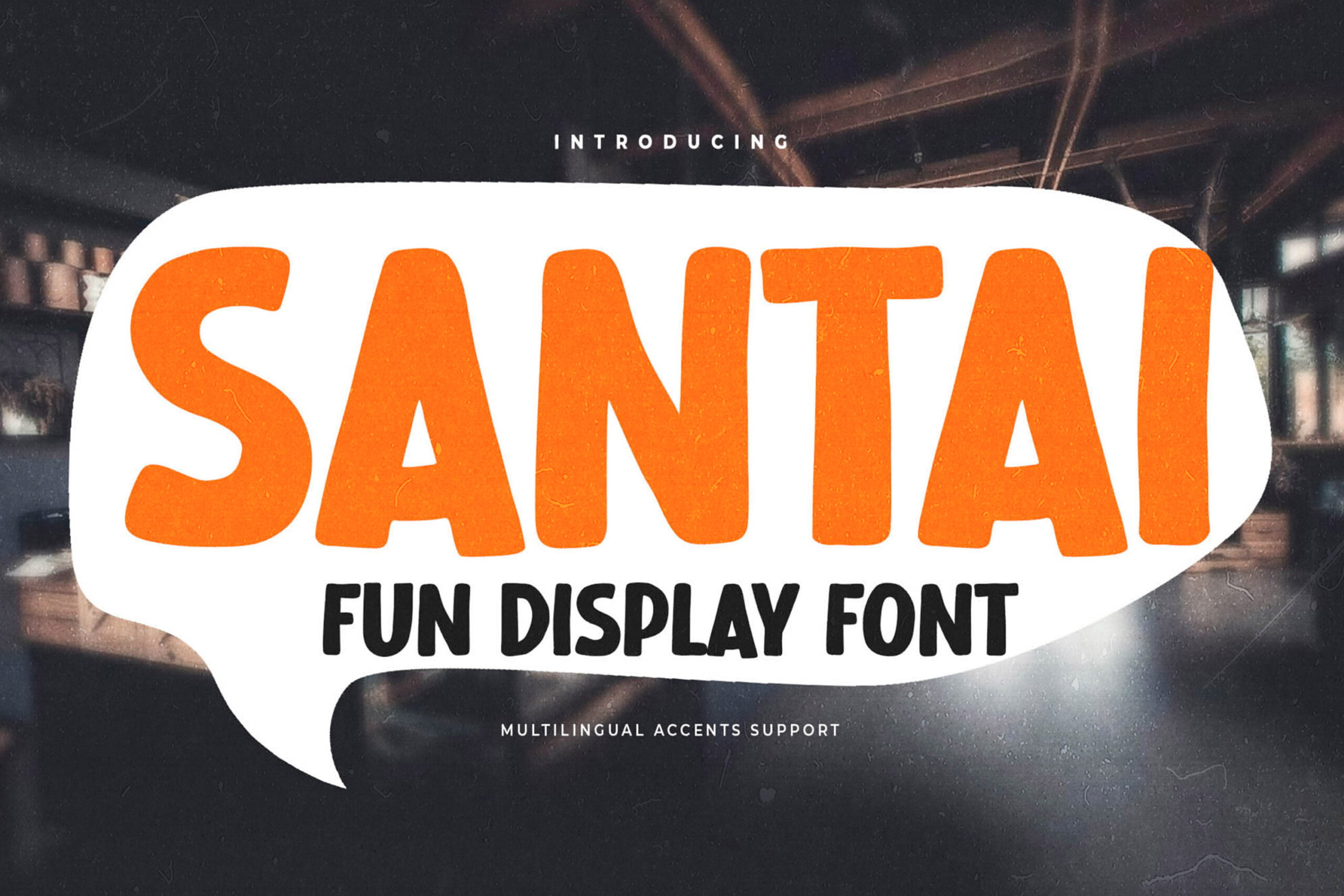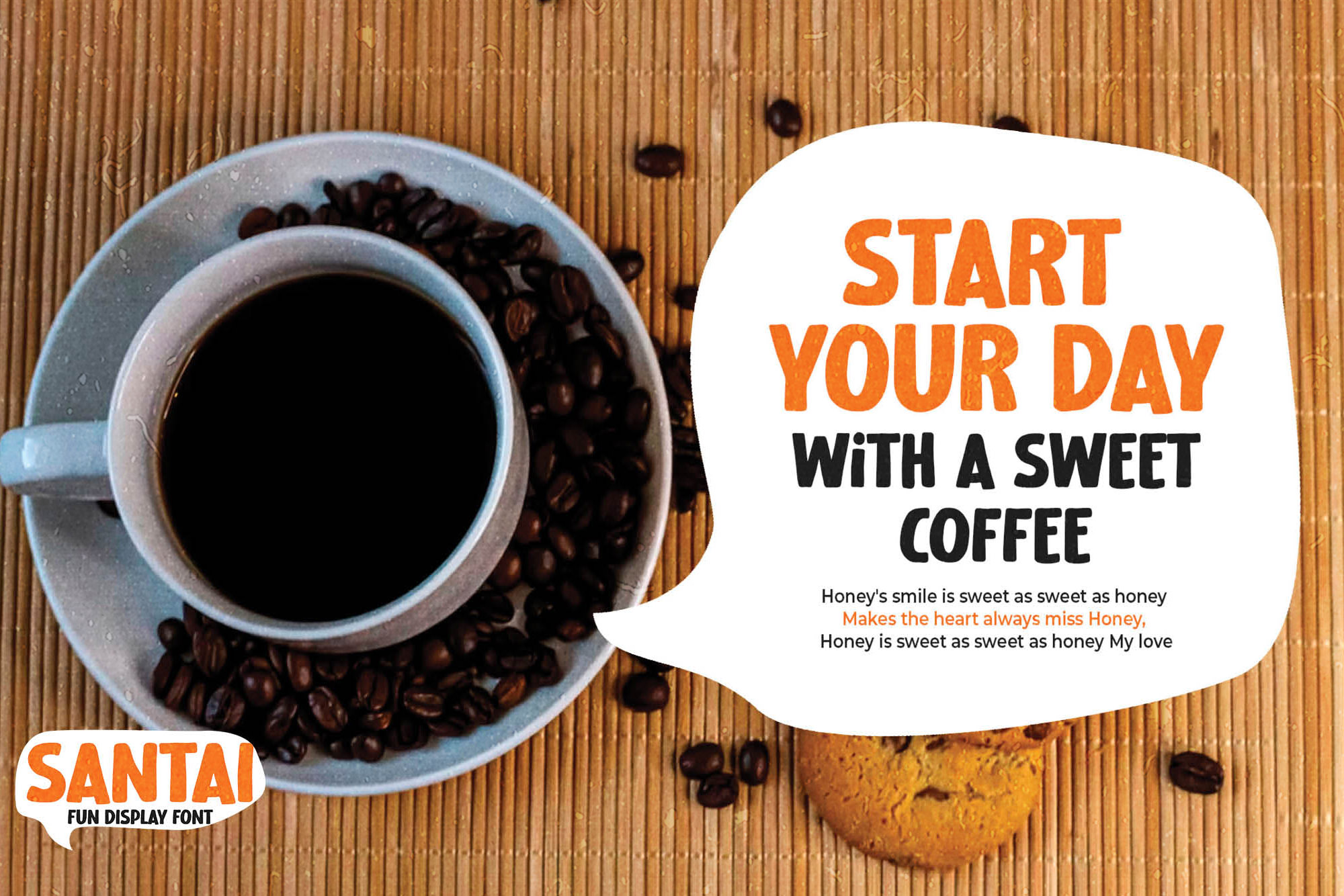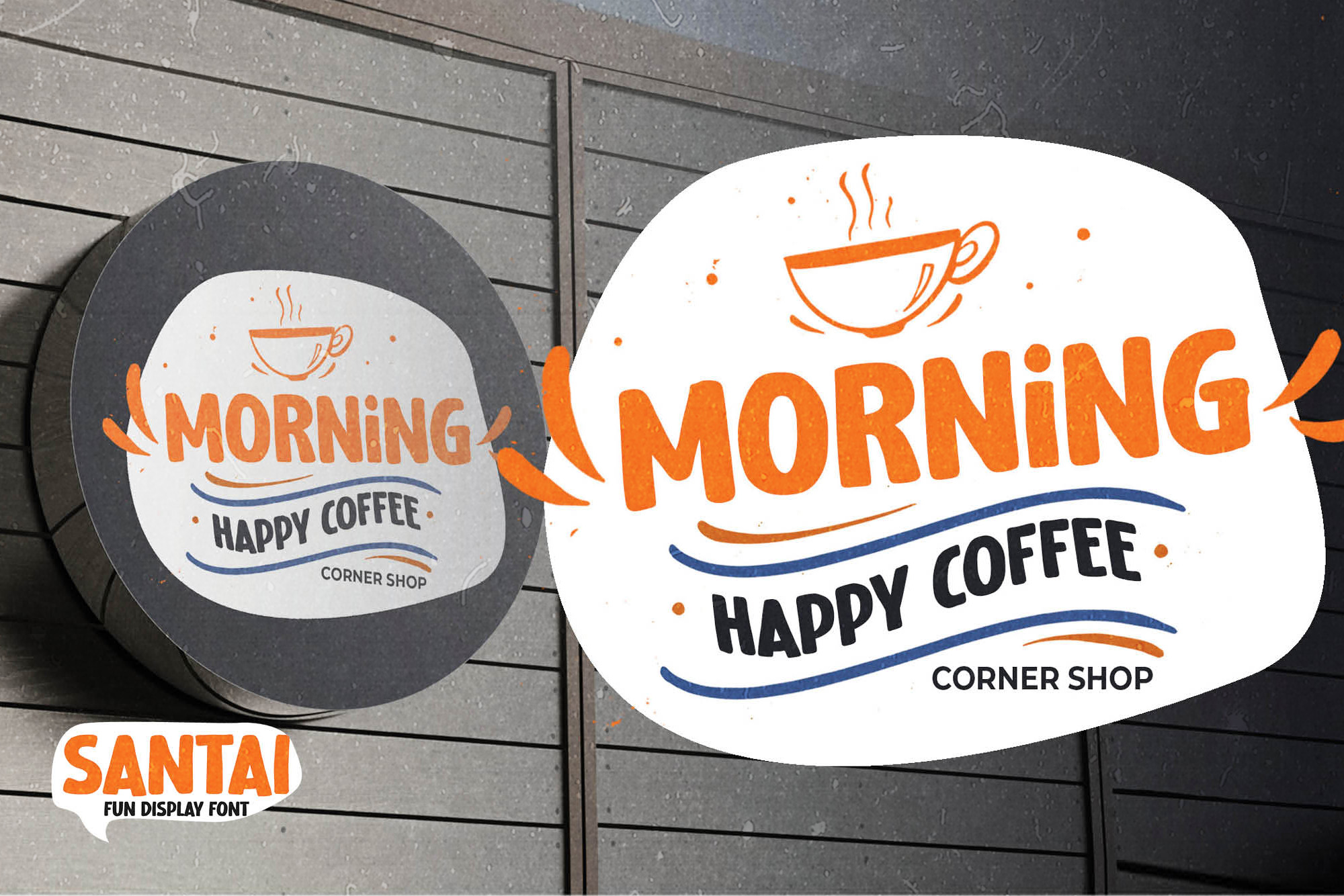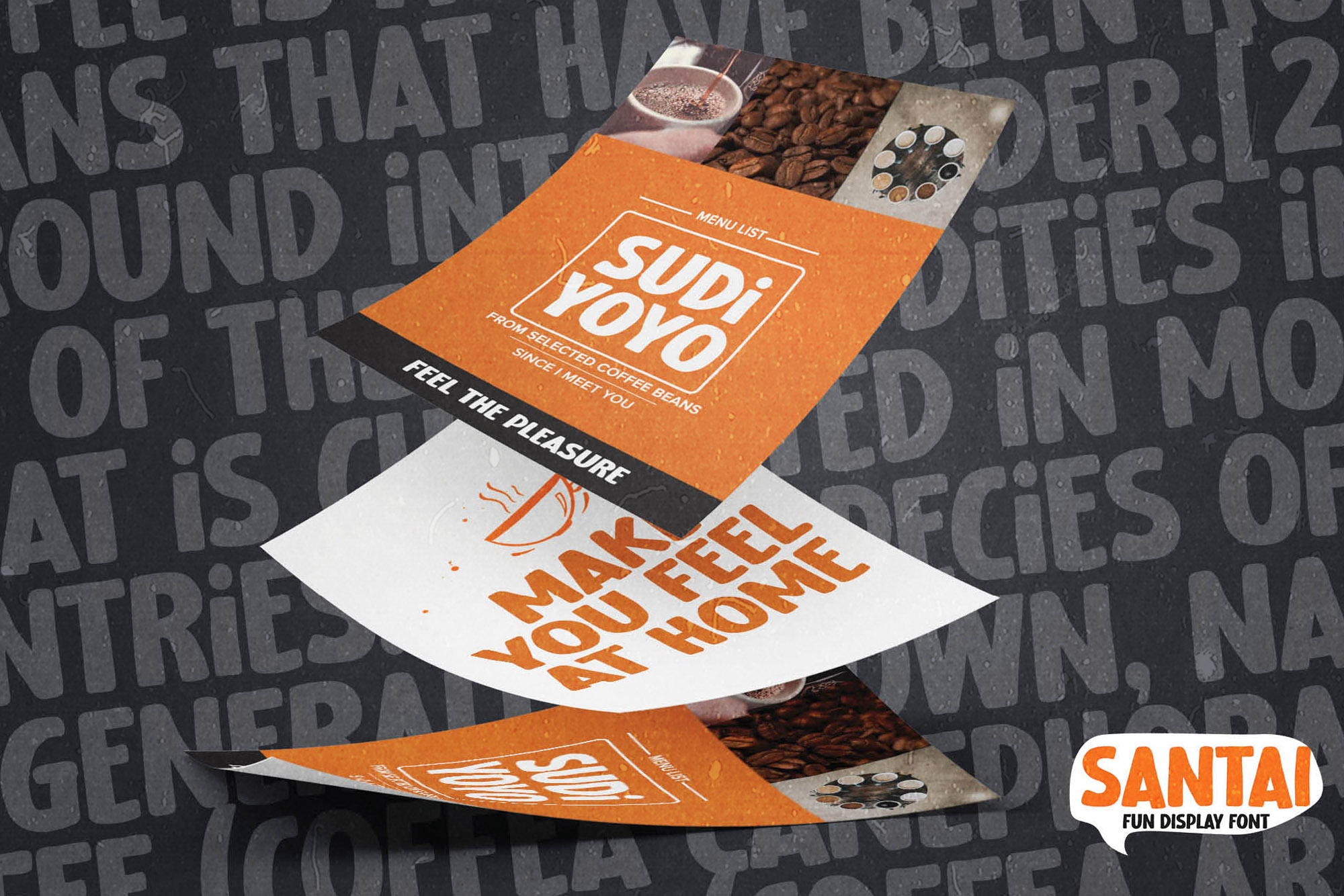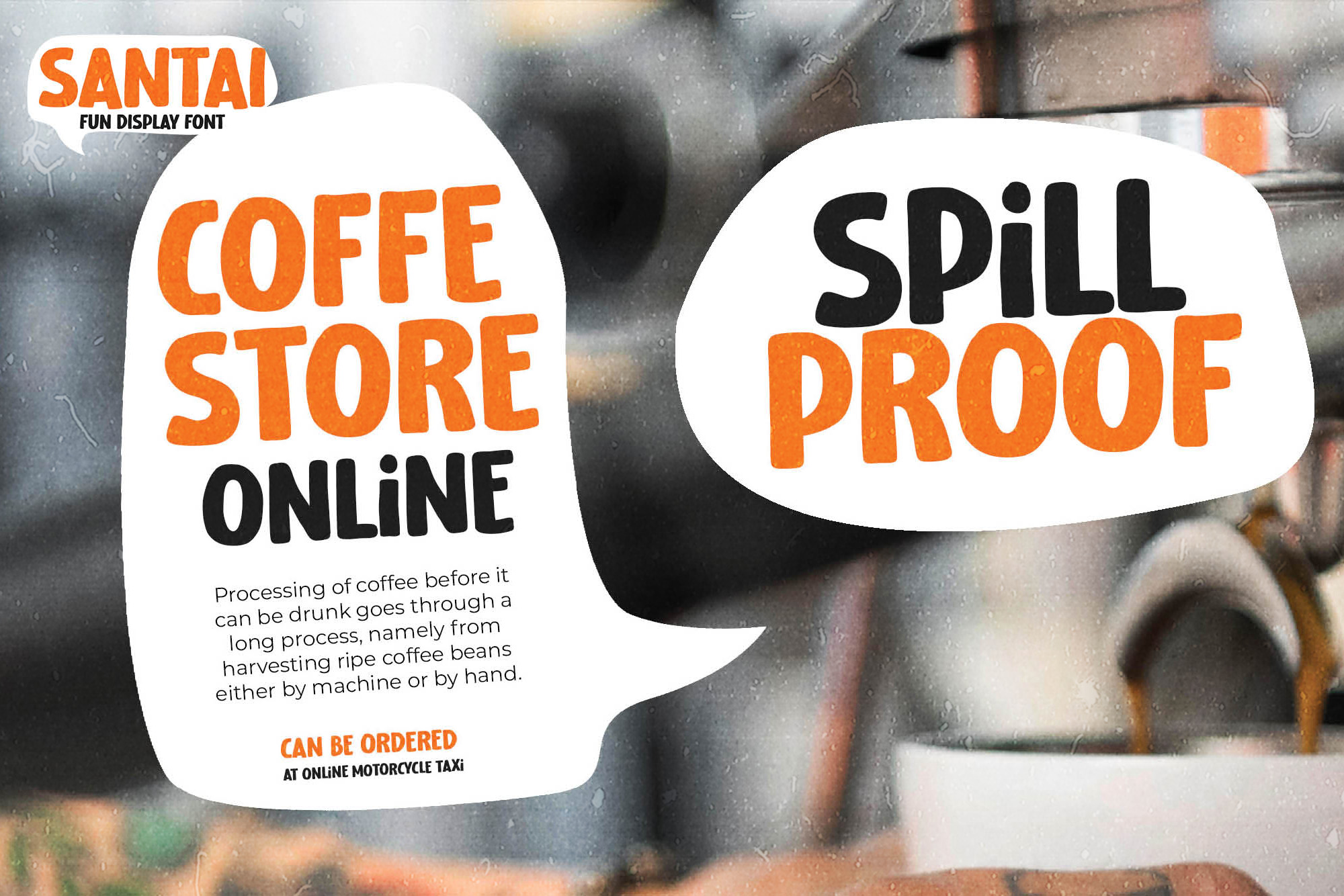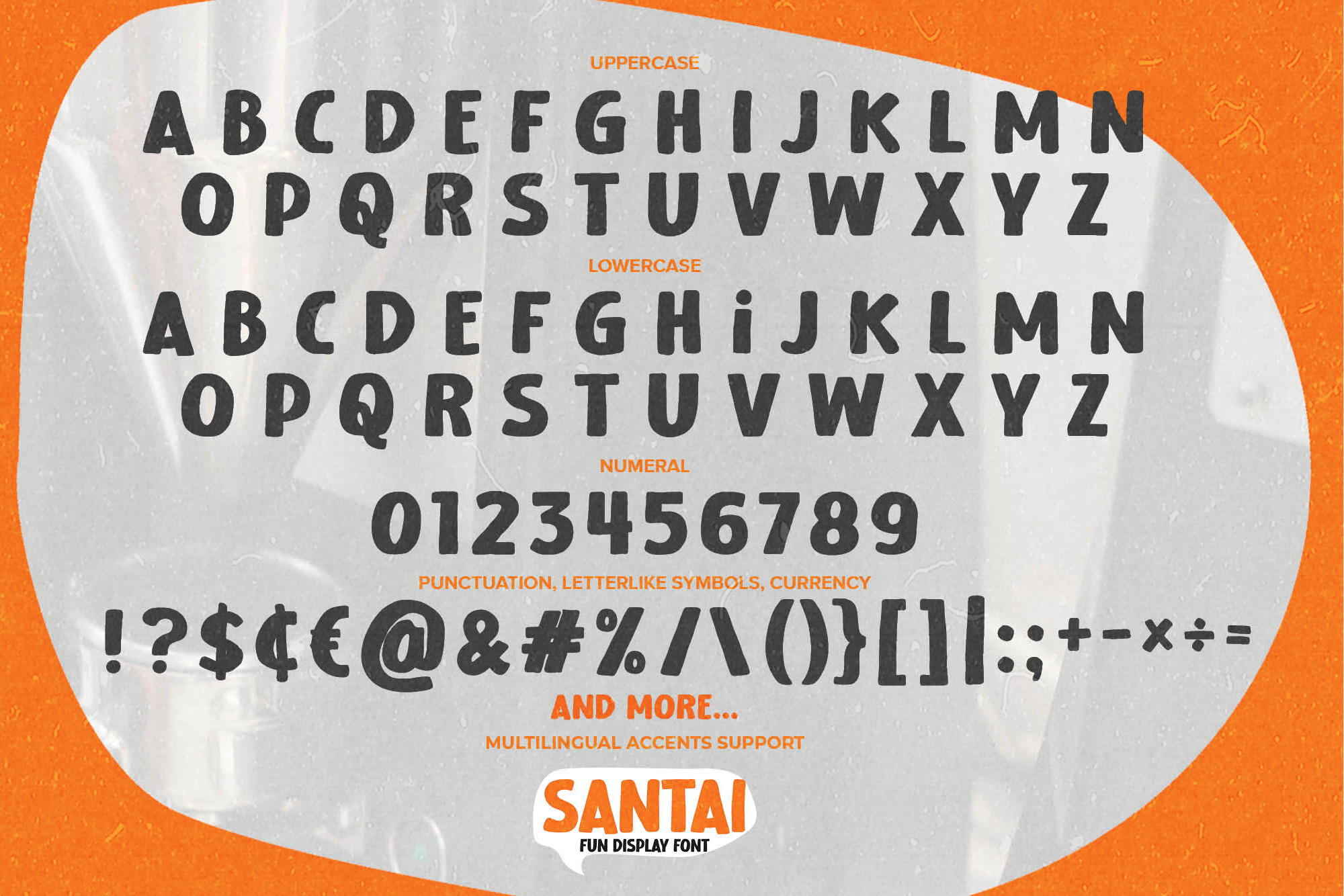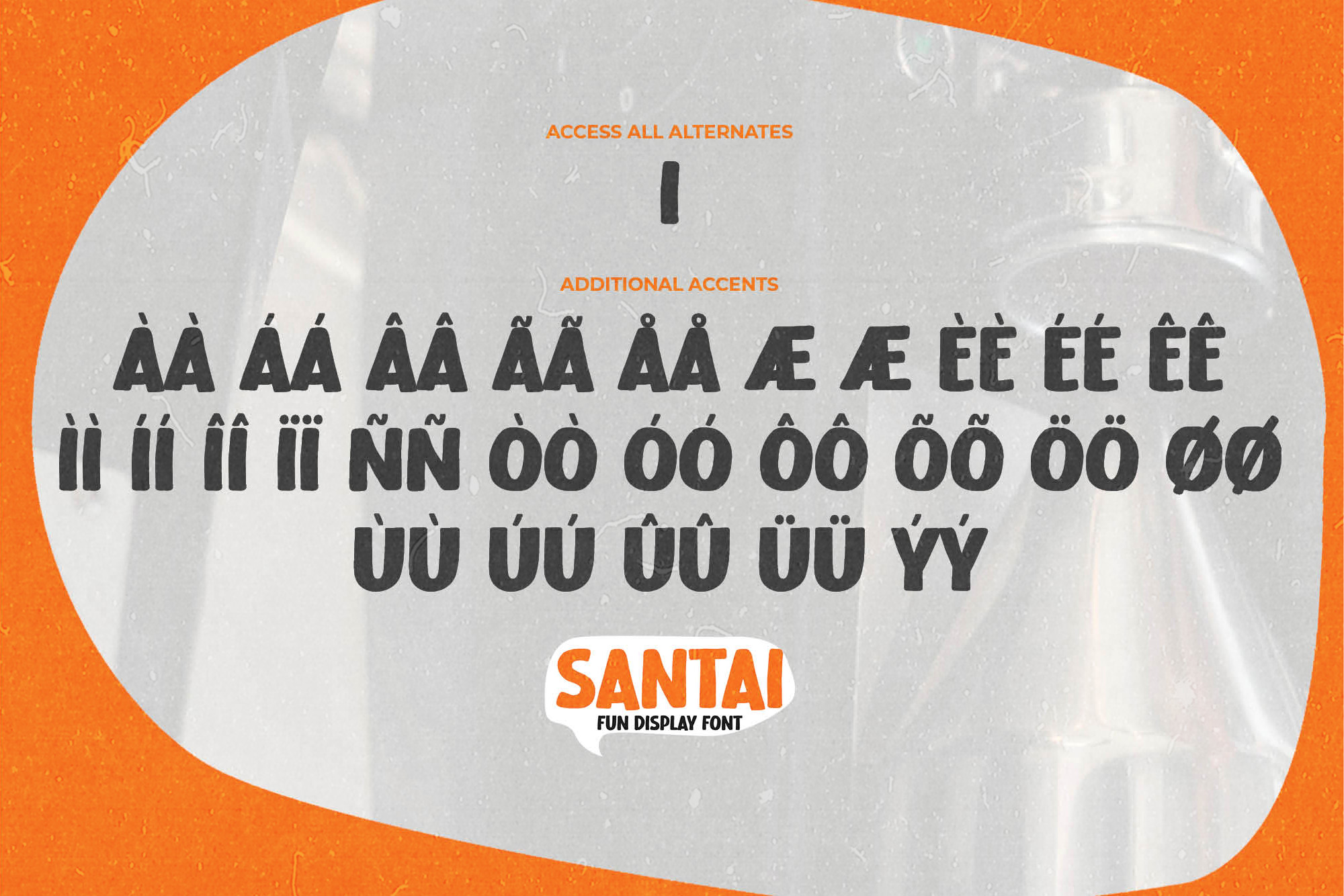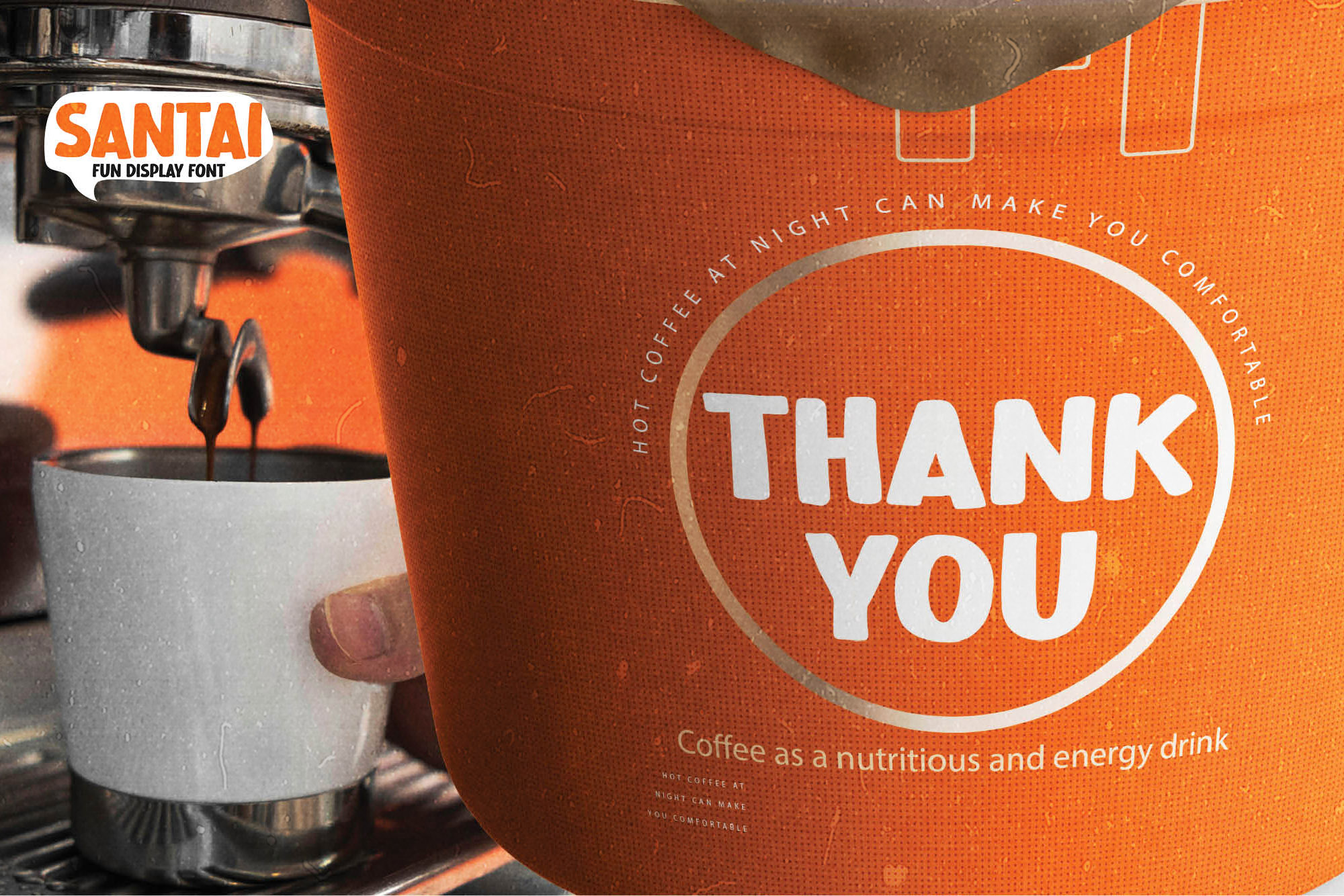
SANTAI – Fun Display Font, modern style and dramatic movement that is written casually and quickly.
The best for labels,poster,project , designs look modern, authentic and unique. It’s perfect for labels, quotes, posters, DIY projects, branding, packaging, greeting cards, websites, photography overlays, signs, scrapbooking, tags and so much more! That is why SANTAI has a textured, and unique characteristic more natural look.